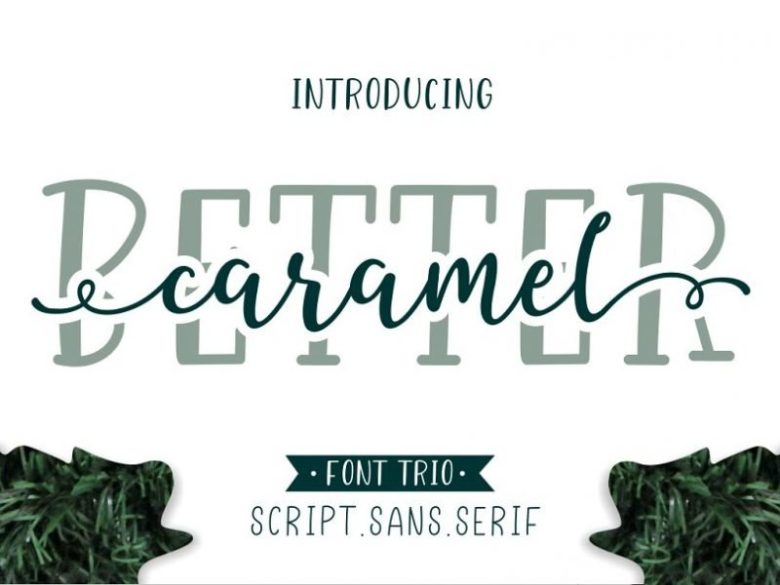
Better Caramel Font Family
Hello Everyone ! Introducing Better Caramel. This is a trio font that can be paired each other. Better Caramel comes with Better Caramel script that contain 14 lowercase start and ending swashes, Better Caramel sans ( Regular, Bold, Hollow ), and Better Caramel serif ( Regular, Bold, Hollow ). Better Caramel is perfect for logo, blog/web headline, clothing, invitation, poster, cafe/resto sign, and many others.